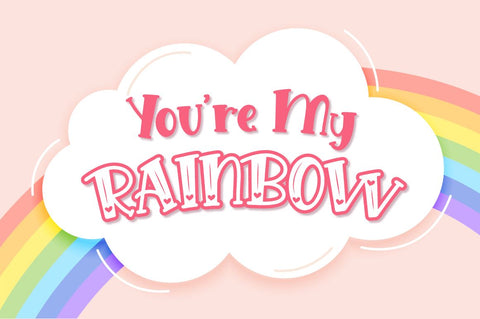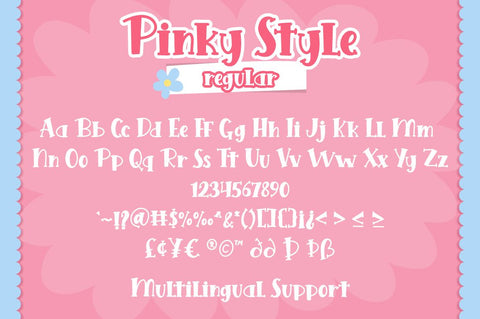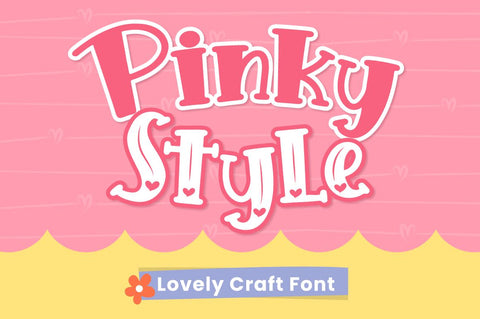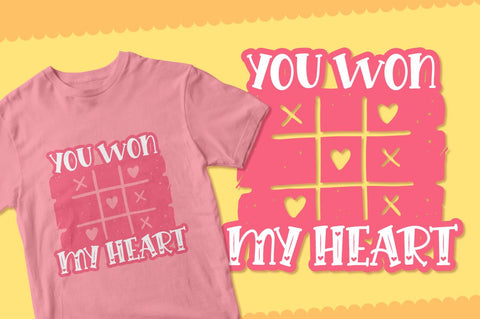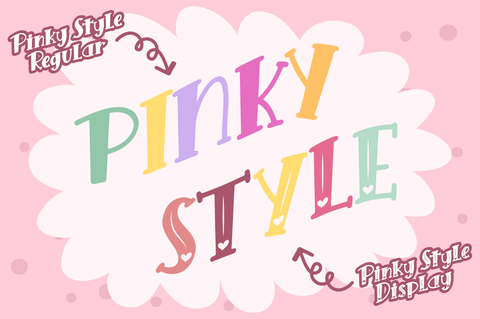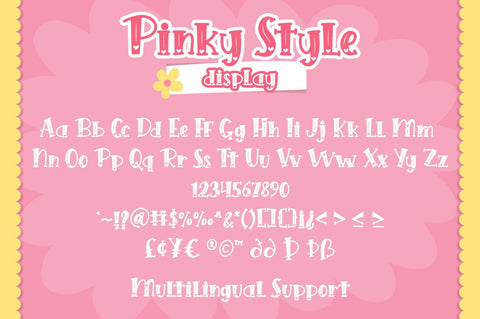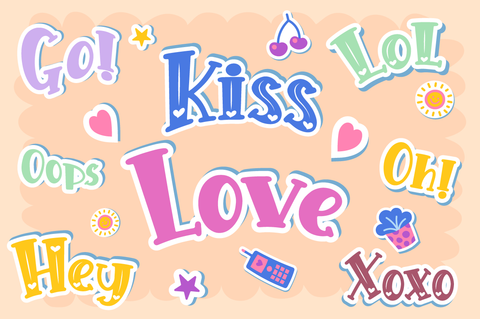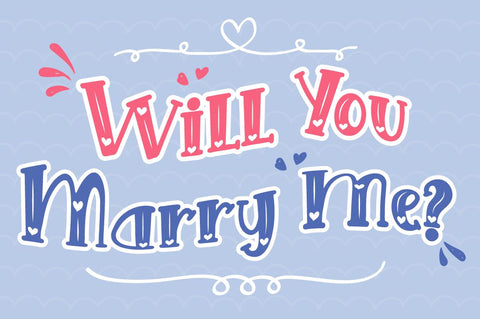
Pinky Style - Lovely Craft Font
Pinky Style is a Lovely Craft Font display font with heart design.
Fall in love with its incredibly versatile style and use it to create spectacular designs!
Pinky Style is perfect for branding, logo, invitation, quotes, apparel design, product packaging, merchandise,
game titles, cute style design, Book/Cover Title and more.